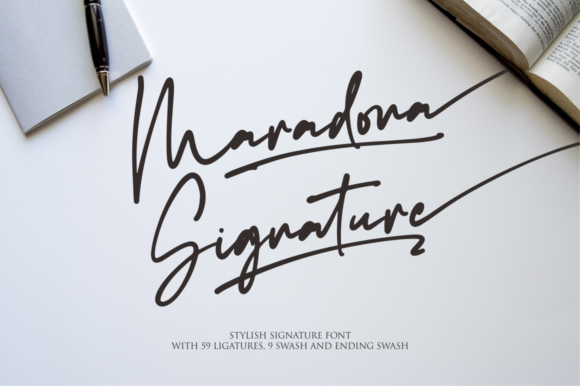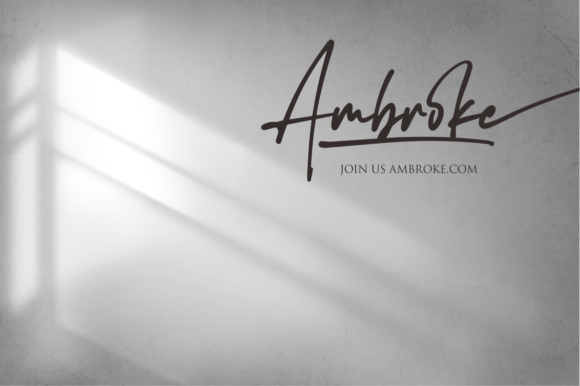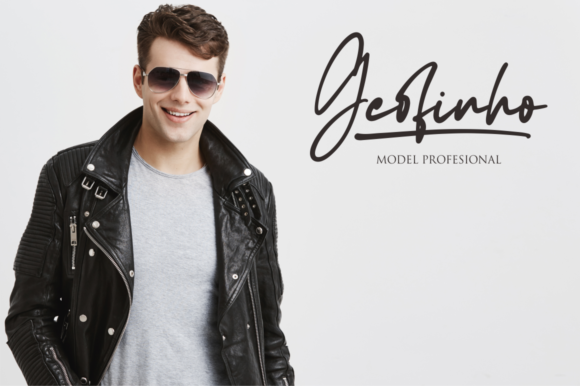
About Maradona Signature Font
“Maradona Signature” is a well-crafted and ravishing handwritten font that exudes elegance and sophistication. With its flowing and effortless character design, this font adds a touch of luxury to any design project. Whether you’re creating logos, branding materials, invitations, or any other design that requires a touch of fancy handwriting, “Maradona Signature” is sure to impress.
The flowing and graceful nature of “Maradona Signature” brings a sense of charm and refinement to your designs. Each letter is meticulously crafted, showcasing the attention to detail that went into creating this font. The result is a typeface that exudes an air of luxury and elegance, making it a perfect choice for high-end and glamorous design applications.
When used in logos and branding materials, “Maradona Signature” adds a touch of sophistication and exclusivity. Its fancy and stylish letterforms create a distinct visual identity for your brand. Whether you’re designing for a luxury fashion brand, a high-end jewelry line, or a premium beauty product, this font will elevate your brand’s aesthetics and convey a sense of elegance and refinement.
In invitations and stationery designs, “Maradona Signature” adds a touch of opulence and glamour. Whether it’s for wedding invitations, event announcements, or personalized stationery, this font creates a luxurious and stylish atmosphere. Its fancy and flowing style adds a sense of grandeur and makes each design feel like a special occasion.
“Maradona Signature” is not only visually captivating but also highly versatile. Being PUA encoded, it allows you to easily access all the glyphs and swashes, providing you with endless possibilities for customization and creative exploration. You can add stylish flourishes, elegant ligatures, and decorative elements to enhance the uniqueness of your designs and make them truly stand out.
In conclusion, “Maradona Signature” is a well-crafted, ravishing, and fancy handwritten font that adds a touch of luxury and sophistication to your designs. Its flowing and effortless character design, combined with its PUA encoding, allows for easy access to a wide range of glyphs and swashes, providing endless possibilities for customization. Embrace the opulence of “Maradona Signature” and elevate your designs to new levels of elegance and style.